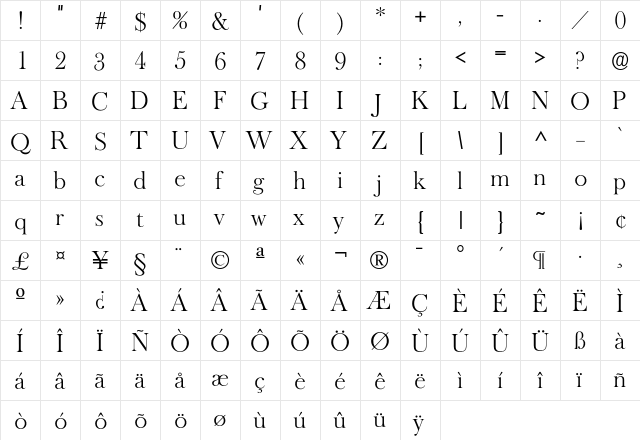
Oldbasker-Light Regular
Design Context for Oldbasker-Light Typeface
Oldbasker-Light offers clean, dependable letterforms without strong stylistic allegiance, making it a practical choice for designers who need flexibility. The delicate stroke weight brings airiness and refinement to layouts.